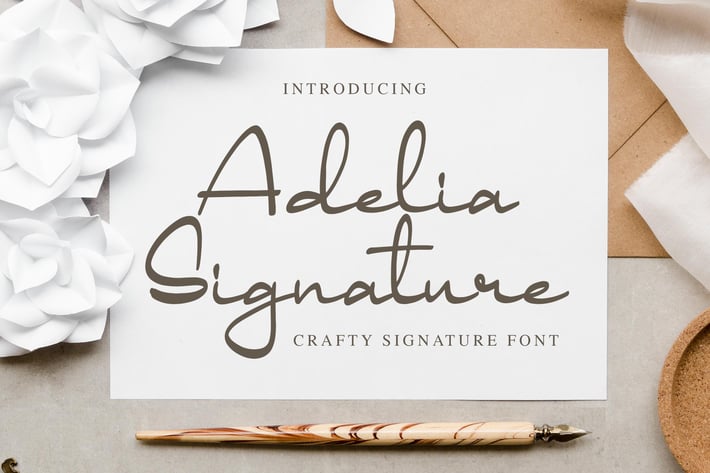
Adelia Signature - Crafty Signature Font
Introducing of our new product the name is Adelia Signature Crafty Signature Font. Adelia Signature inspired by modern calligraphy style this font is a fun theme very good for display, wedding, valentine theme, logotype and etc